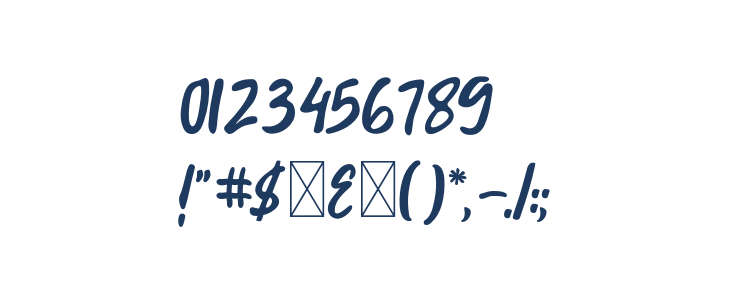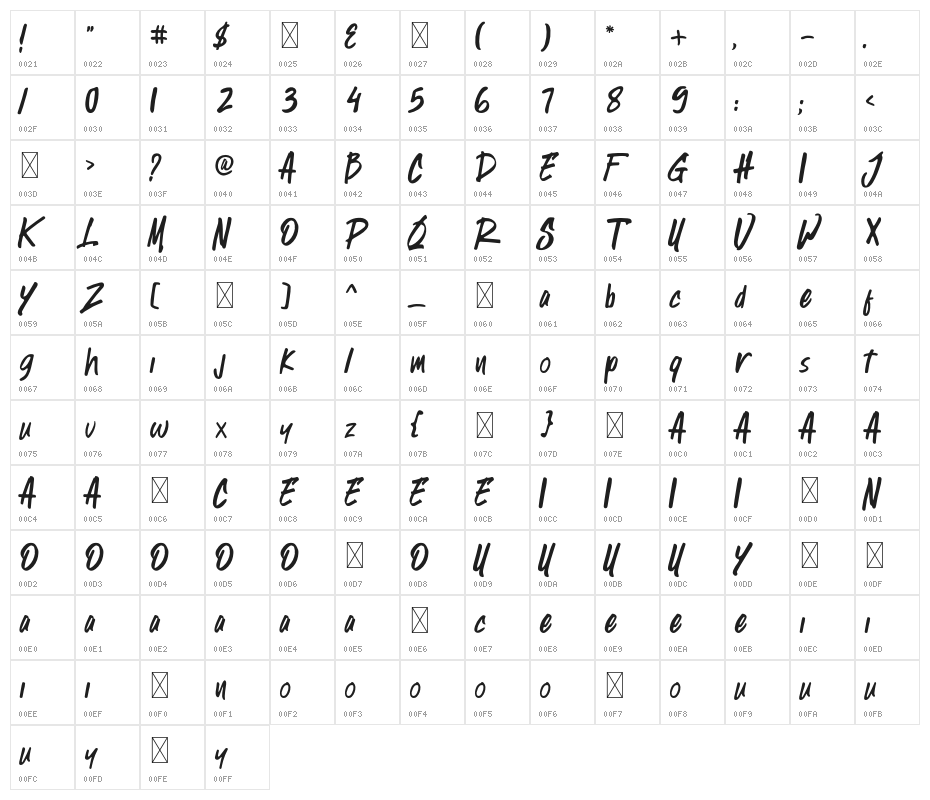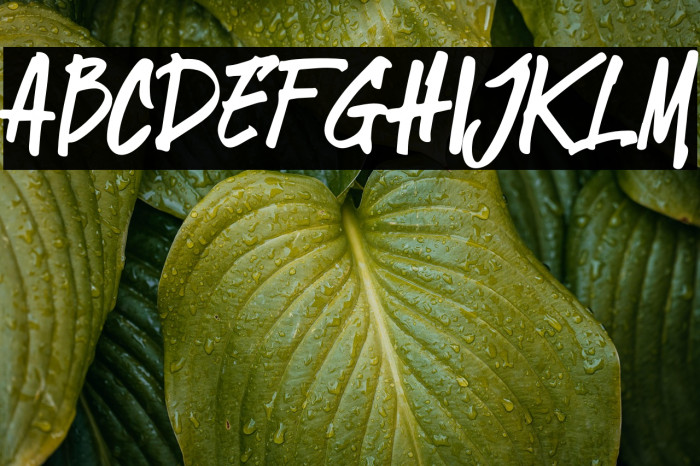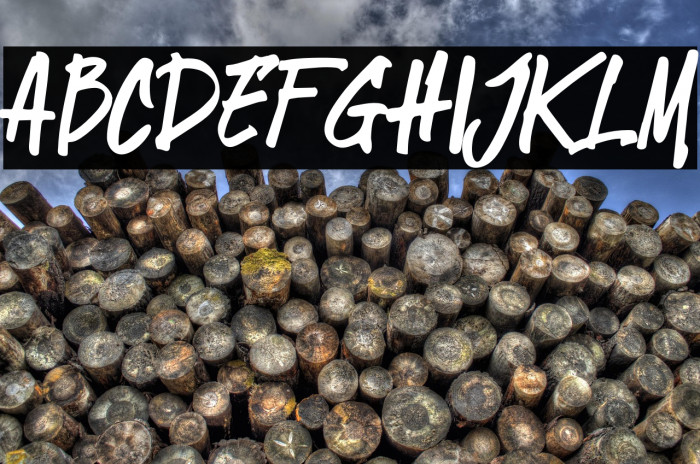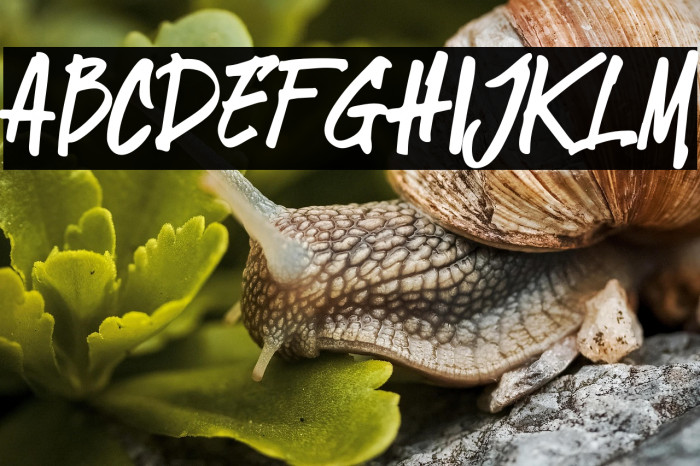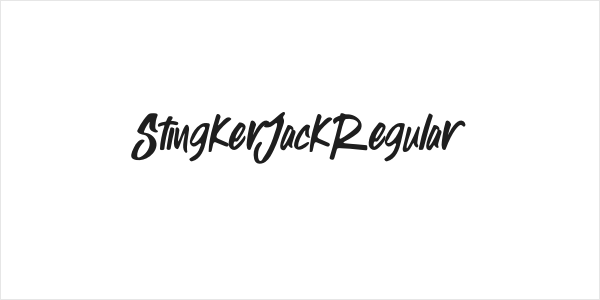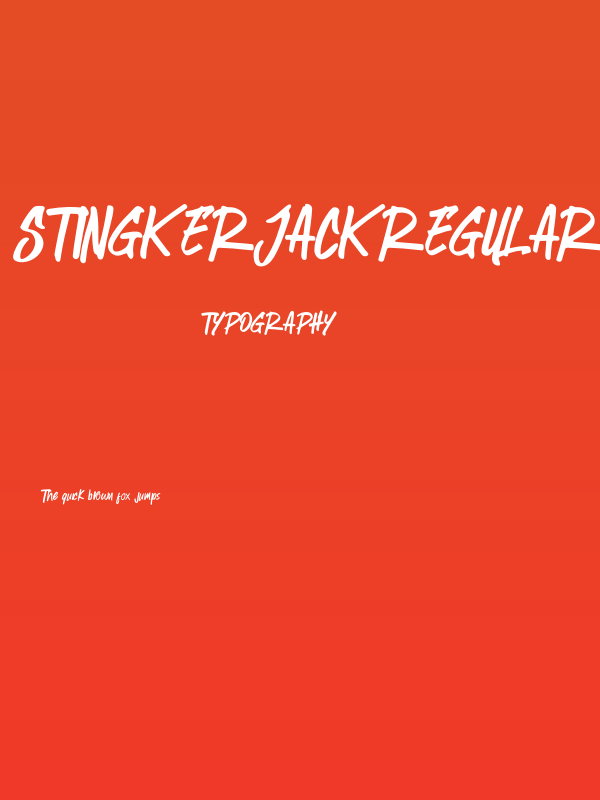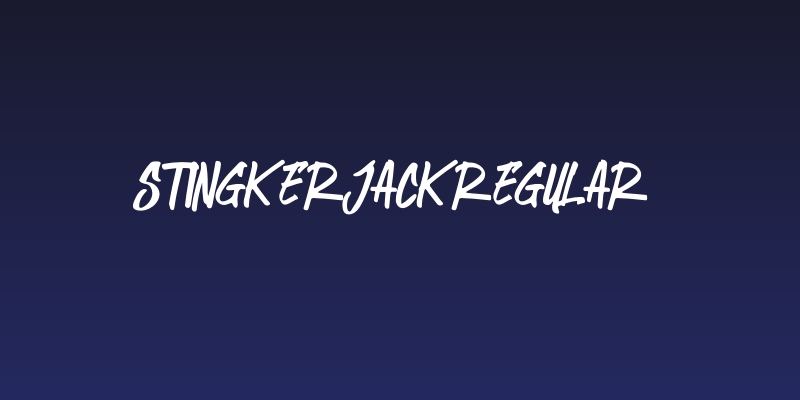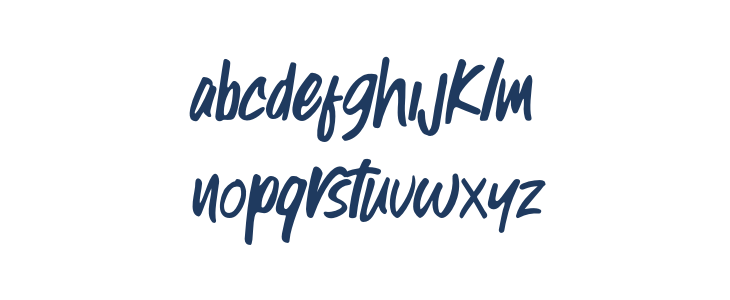
StingkerJackRegular Font
StingkerJackRegular Description
This font features a bold, energetic script style with a hand-drawn appearance. The letters are slightly slanted, giving a dynamic and lively feel. The strokes are thick and consistent, with a playful and informal vibe. The uppercase letters are prominent and eye-catching, while the lowercase letters maintain a cohesive flow. The numbers and special characters follow the same energetic style, making them suitable for creative and informal designs.
Proposed ProjectsIdeal for branding projects, logo designs, posters, and social media graphics that require a lively and informal touch.